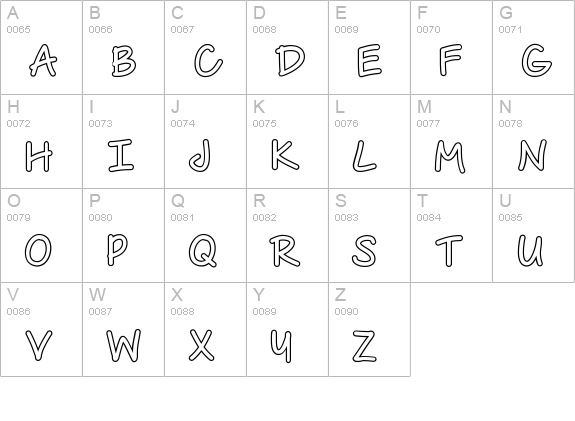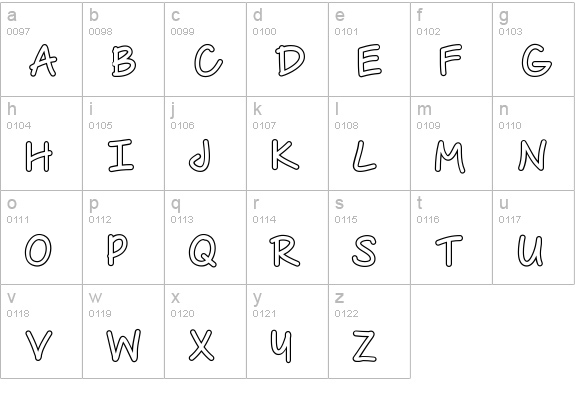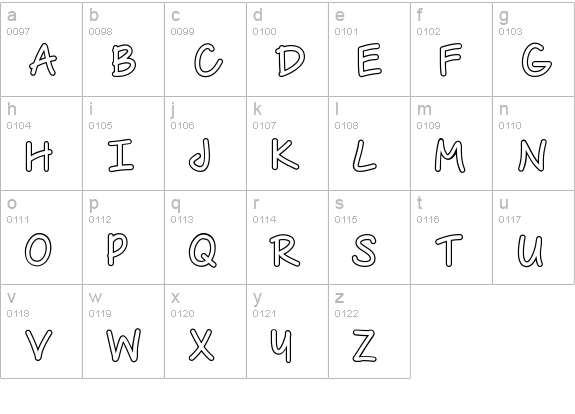
UrbanClass Font Details
UrbanClass font is a masterpiece of typographical excellence that effortlessly blends modern aesthetics with a timeless elegance. This font exudes a sense of urban sophistication, making it perfect for contemporary design projects that demand a touch of class and style. With its clean lines and sleek curves, UrbanClass font captures attention and commands respect. Its bold and distinct letterforms are carefully crafted to create a harmonious balance between functionality and visual appeal. This font is versatile, able to adapt to various design contexts, whether it's used for logos, posters, packaging, or editorial layouts. One of the most remarkable features of UrbanClass font is that it is completely free. Yes, you read that right! This font is freely available to download at FontsMarket.com, a trusted source for high-quality and diverse font collections. By offering UrbanClass font for free, the creators have made it accessible to designers and creatives of all levels, ensuring that everyone can enjoy the beauty and versatility of this remarkable typeface. Using UrbanClass font in your projects will not only elevate the overall visual impact but also convey a sense of professionalism and attention to detail. Its clean and crisp design ensures legibility at any size, making it suitable for both print and digital applications. Whether you're designing a sleek corporate identity, a captivating advertisement, or a stylish website, UrbanClass font will undoubtedly add a touch of sophistication and refinement to your work. Download it for free at FontsMarket.com and unlock a world of possibilities in your design journey.